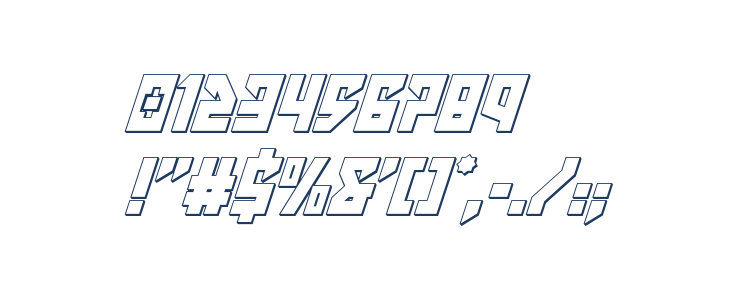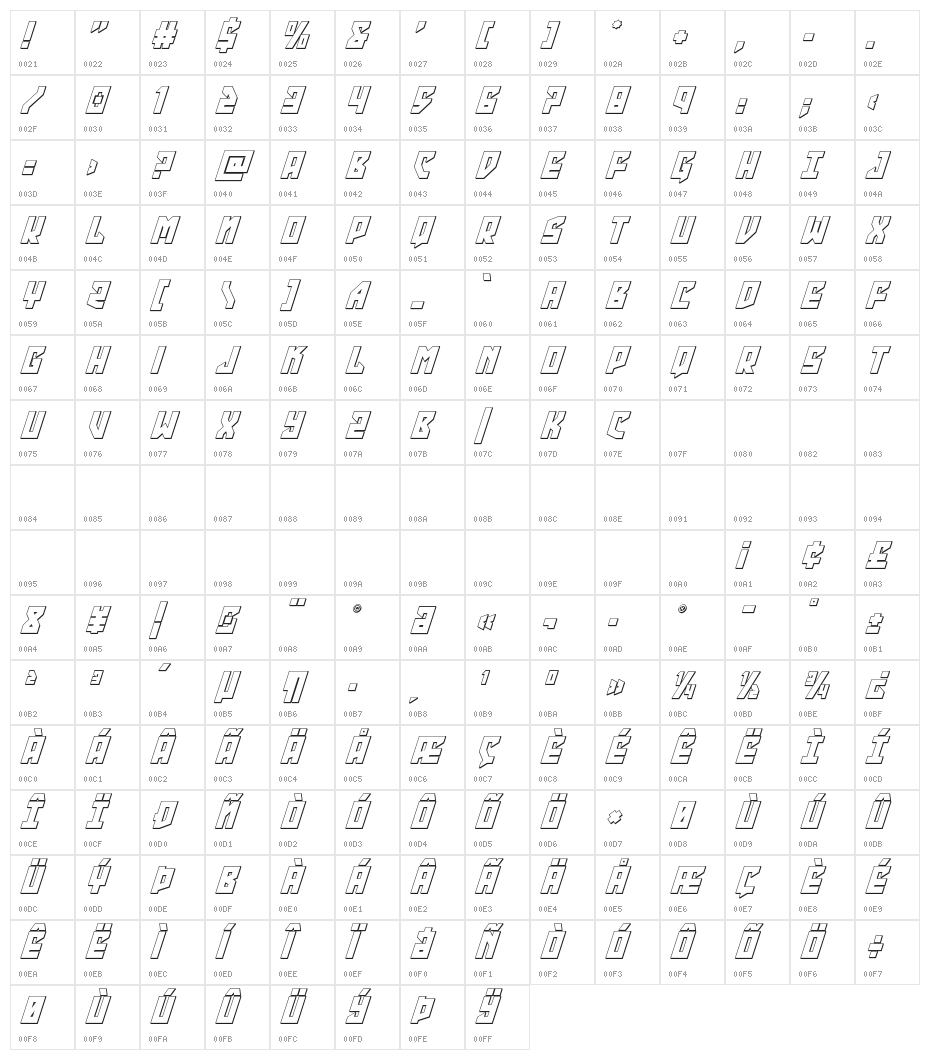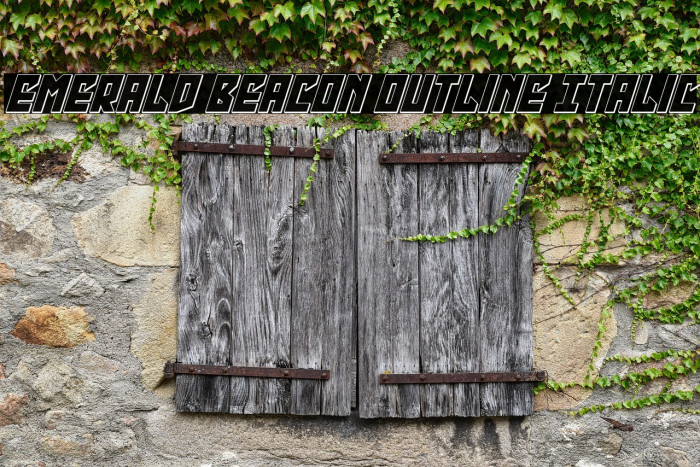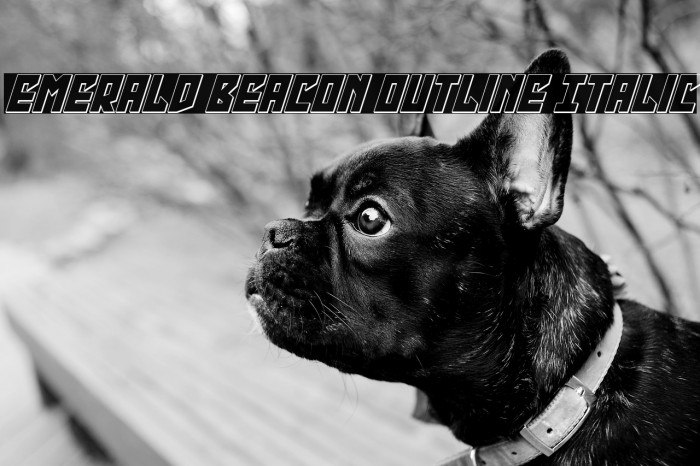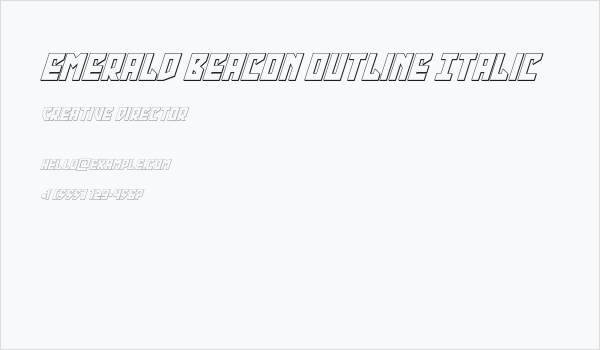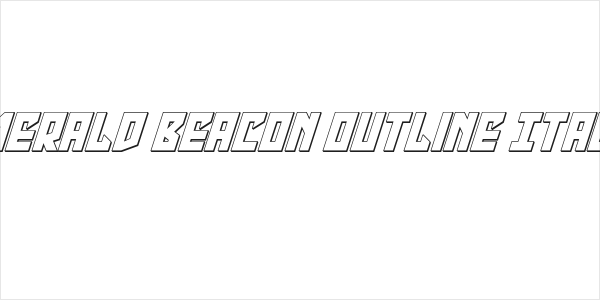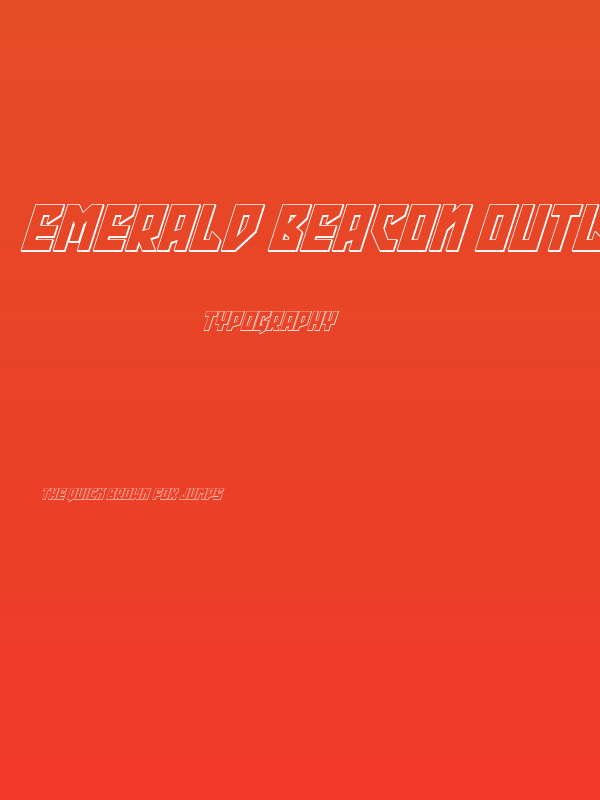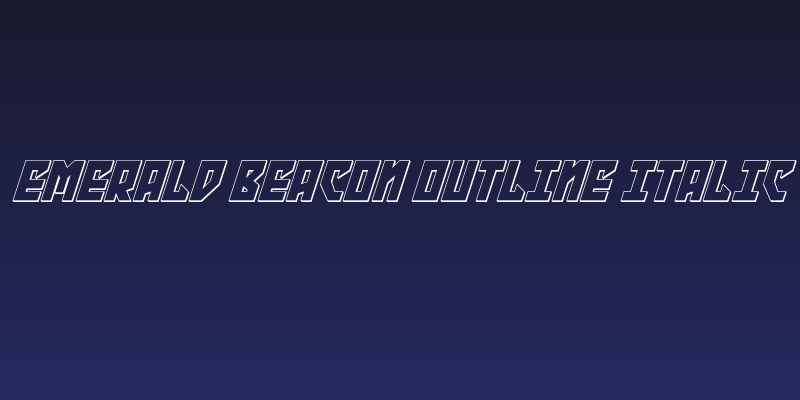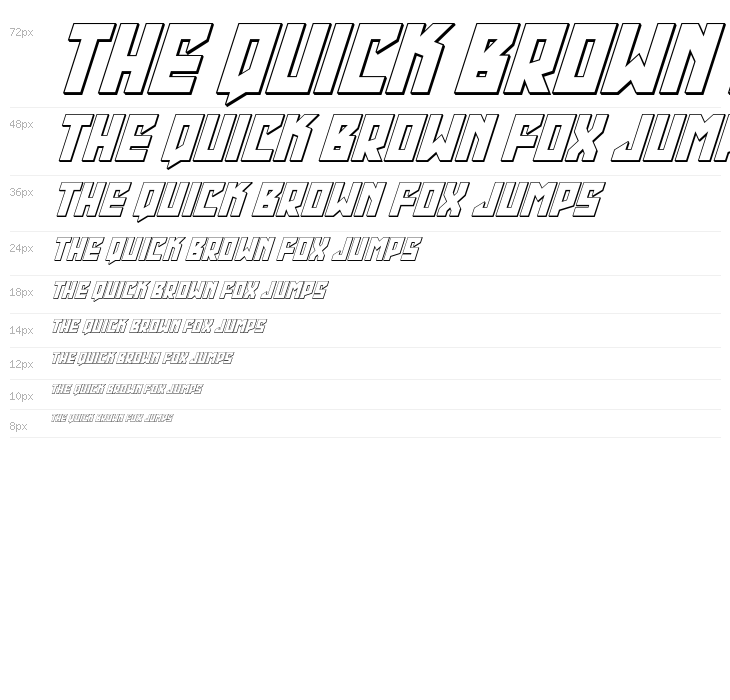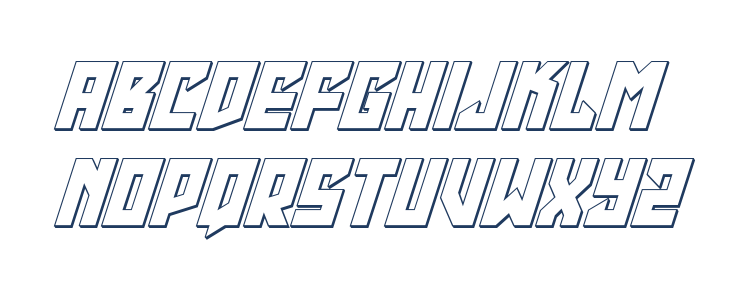
Emerald Beacon Outline Italic Font
Emerald Beacon Outline Italic Description
This font features a bold, geometric design with a distinct outline style. The italicized letters add a dynamic and forward-leaning appearance, making it stand out. The uppercase and lowercase letters maintain a consistent angular form, creating a cohesive and modern look. The numerals and special characters follow the same design principles, ensuring uniformity across all glyphs. The outline effect gives the font a unique and eye-catching quality, suitable for projects that require a strong visual impact.
Proposed ProjectsIdeal for branding, posters, and headlines where a striking and modern appearance is desired.